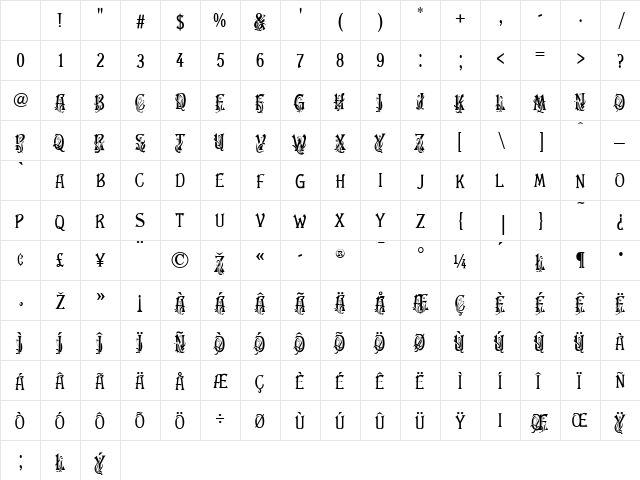
Complete FloralLatin Regular glyph index. Displaying only characters natively supported by FloralLatin Regular font.
FloralLatin is a composed and adaptable typeface that performs quietly and consistently across a wide range of design contexts.